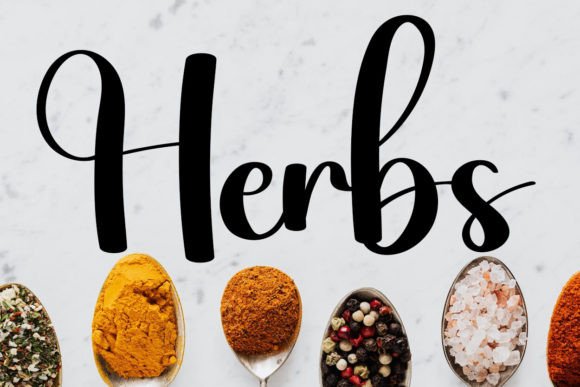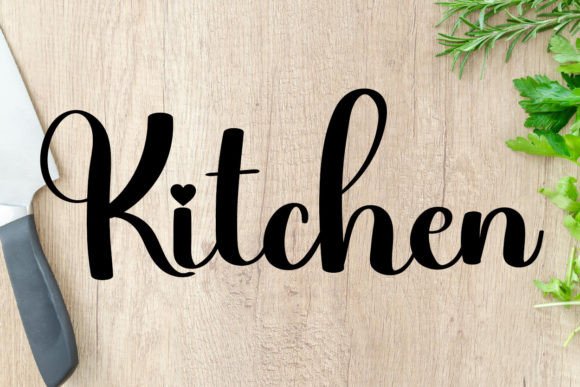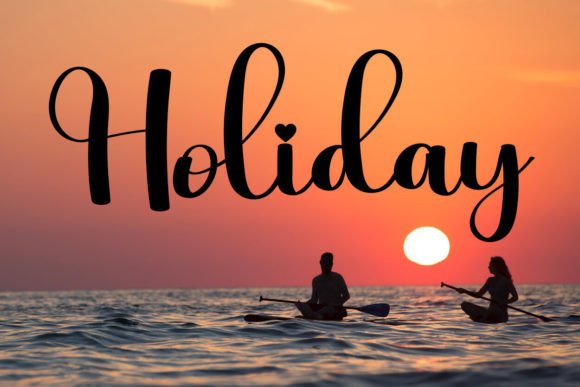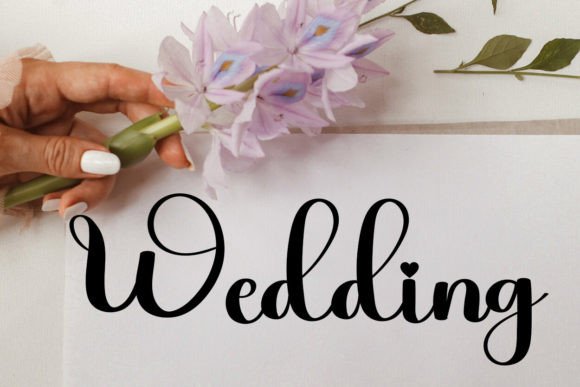
Introducing Chilli Font: The Sweet and Friendly Handwritten Font for Your Creative Projects
Are you a designer, crafter, or DIY enthusiast looking for a unique and versatile font to bring your creative projects to life? Look no further than Chilli Font, a sweet and friendly handwritten font that’s perfect for a wide range of designs. With its natural and distinctive style, Chilli Font is sure to add a personal touch to your work and make it stand out from the crowd.
The Characteristics of Chilli Font
So, what makes Chilli Font so special? For starters, its handwritten style gives it a warm and approachable feel that’s perfect for designs that need a personal touch. The font’s natural and unique style also makes it incredibly versatile, allowing you to use it for a wide range of projects, from invitations and greeting cards to branding and packaging.
One of the best things about Chilli Font is its incredible flexibility. Whether you’re designing for digital or print, Chilli Font adapts seamlessly to any medium, ensuring that your text looks great no matter where it’s displayed. Plus, with its clear and legible letters, Chilli Font is easy to read, making it perfect for designs that require a lot of text.
The Benefits of Using Chilli Font
So, why should you choose Chilli Font for your next project? For one, its unique and distinctive style will help your designs stand out from the crowd. Unlike more traditional fonts, Chilli Font adds a touch of personality and whimsy to your work, making it perfect for designers and crafters who want to add a bit of flair to their designs.
How to Use Chilli Font in Your Designs
So, how can you use Chilli Font in your designs? The possibilities are endless! Here are a few ideas to get you started:
- Invitations and greeting cards: Add a personal touch to your invitations and greeting cards with Chilli Font’s warm and friendly style.
- Branding and packaging: Use Chilli Font to add a bit of personality to your branding and packaging, making your products stand out on store shelves.
- Digital designs: Chilli Font is perfect for digital designs, including social media graphics, blog posts, and website headers.
- Crafting projects: Add a touch of whimsy to your crafting projects, including scrapbooking, journaling, and card making.
Tips and Tricks for Getting the Most Out of Chilli Font
To get the most out of Chilli Font, here are a few tips and tricks to keep in mind:
- Experiment with different colors and textures: Chilli Font looks great in a variety of colors and textures, so don’t be afraid to experiment and find the perfect combination for your design.
- Mix and match with other fonts: Chilli Font pairs well with a wide range of fonts, so feel free to mix and match to create a unique and interesting design.
- Use it sparingly: While Chilli Font is perfect for adding a personal touch to your designs, it’s best used sparingly. Try using it for headings or titles, and a more traditional font for body text.